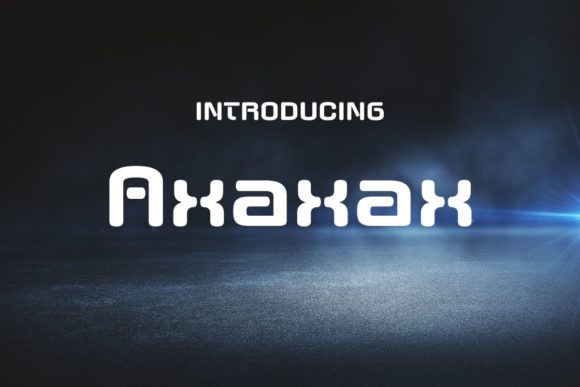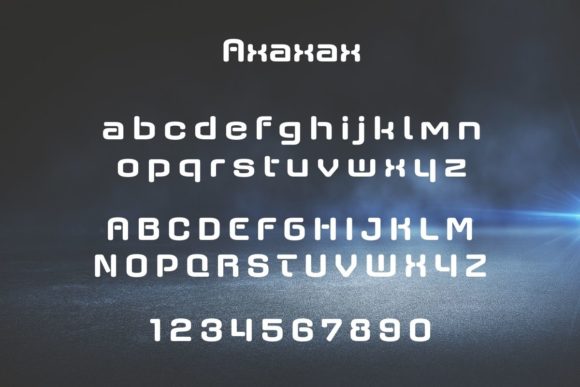
HomePersonal Use FreeAxaxax Bold Personal Use Free Axaxax Bold FacebookXPinterestWhatsApp 1 of 2 About Axaxax Bold Font Axaxax bold is an ultra-modern, rounded sans serif font. It has a futuristic and stencil look that will compliment your techno-inspired designs. DOWNLOAD NOW People also explored Dead Fataly Font Saturnus Font Hotel Font Salvatrice Semi-Bold Font Claudy Happy Font CornerOne Font Marcopolo Font Norty Font Piano Music Font 341 0 TagsAxaxax Bold Font Previous articleDealerplate CaliforniaNext articleBanana Valentine LEAVE A REPLY Cancel reply Comment: Please enter your comment! Name:* Please enter your name here Email:* You have entered an incorrect email address! Please enter your email address here Website: Save my name, email, and website in this browser for the next time I comment. Personal Use Free Huntry Personal Use Free Read more about this font The Royal Personal Use Free Read more about this font Black Jalal Personal Use Free Read more about this font Lovely Girl Personal Use Free Read more about this font BLOG How to Install and Use Fonts on Windows, macOS, and Web Projects How to Install and Use Fonts on Windows, macOS, and Web Projects Fonts are a crucial part of design and branding. Whether you’re designing a... To increase your work productivity, choose the most readable fonts. Exploring Font Trends Top 10 Handwritten Fonts That Elevate Your Designs